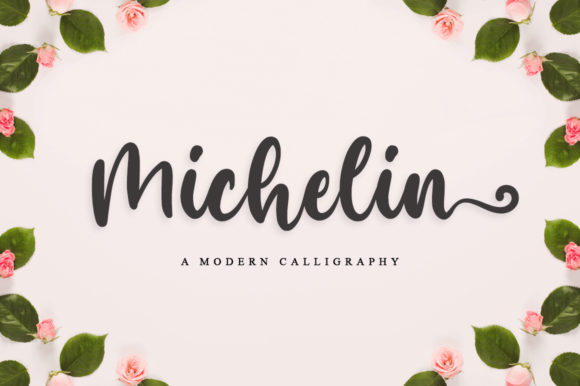
Unleash the charm and sophistication of your creative projects with Michelin, a captivating script font family that exudes elegance and class. Designed by the talented NissaStudio, Michelin's intricate curves and delicate strokes bring a touch of timeless beauty to your designs.
Immerse yourself in the world of Michelin, a font created to inspire and elevate your design aspirations. Its carefully crafted characters dance across the page, leaving a trail of grace and charm. Whether you're a seasoned designer or just starting your creative journey, Michelin is the perfect companion for adding a touch of refinement to your work.
Discover the versatility of Michelin, a font that seamlessly adapts to a myriad of design projects. From logos and branding that demand attention to invitations and stationary that convey a sense of occasion, Michelin effortlessly enhances the impact of your message. Its timeless appeal makes it suitable for wedding designs, social media posts, and any other project where a personalized touch is desired.
With Michelin, you're not just downloading a font; you're acquiring a tool that empowers you to transform your designs into works of art. Its PUA encoding allows for effortless access to all glyphs and swashes, opening up endless possibilities for customization. Unleash your creativity and let Michelin guide you towards design excellence.
Embrace the allure of Michelin, a font that captures the essence of sophistication and grace. Its ability to elevate your designs is undeniable, making it the perfect choice for discerning designers seeking to make a lasting impression. Experience the magic of Michelin today and let your creativity soar to new heights.